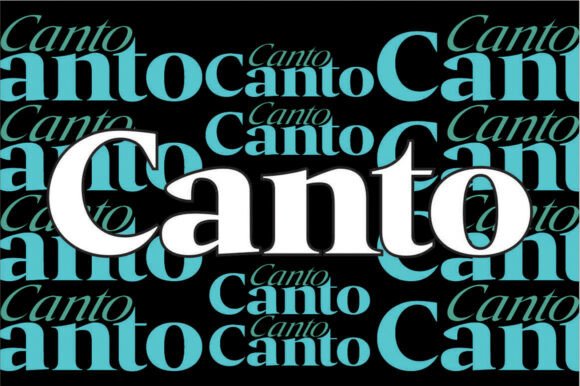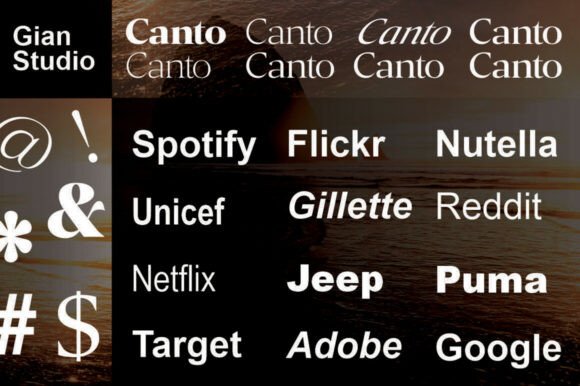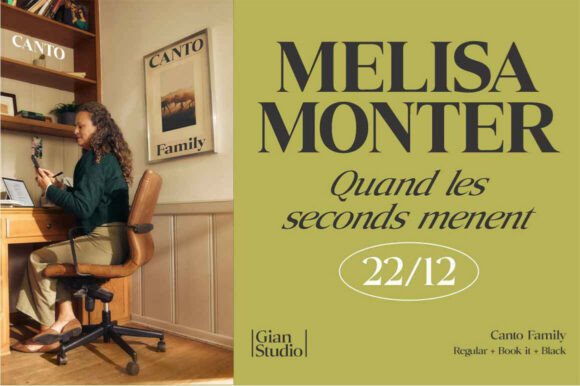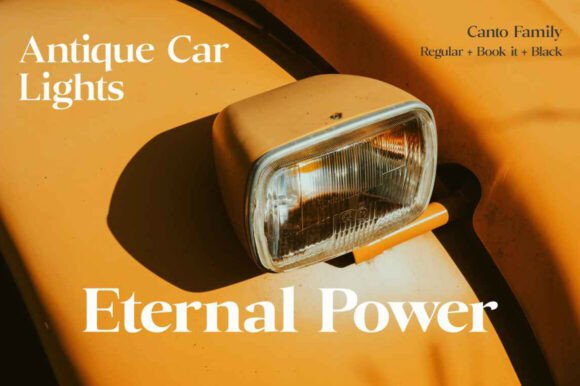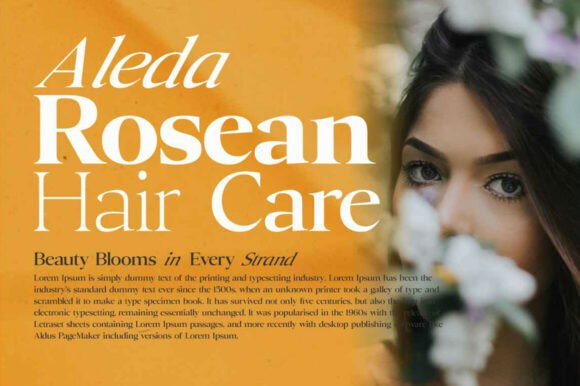
Introducing Canto Font: Where Timeless Heritage Meets Modern Usability
In the world of typography, few font families have managed to strike a balance between classic charm and modern usability. Canto Font is one such exceptional typeface that seamlessly blends the best of both worlds, offering a unique fusion of timeless heritage and versatile engineering. This monumental serif display font family is a masterpiece of typographic design, drawing inspiration from traditional Roman inscription geometry and vintage editorial frameworks.
The Inspiration Behind Canto Font
Canto Font’s design is deeply rooted in the structural integrity of traditional Roman inscriptions and vintage editorial frameworks. The font’s creators sought to revive the classic charm of these timeless typographic styles while infusing them with modern usability. The result is a font family that exudes authority, elegance, and sophistication. The bold, authoritative stems and sharply chiseled serifs of Canto Font give it a commanding presence on the canvas, making it an ideal choice for designers seeking to make a statement.
A Masterful Typographic Production Kit
Canto Font is more than just a font – it’s a comprehensive typographic production kit. The complete family package includes an expansive library of 19 styles, ranging from stately, ultra-bold weights to fluid, forward-slanting italics. This vast range of styles gives editorial designers complete creative fluidity, allowing them to experiment with different typographic combinations and express their unique vision. Whether you’re designing a luxury brand logo, a high-end editorial spread, or a monumental signage project, Canto Font has got you covered.
Key Features of Canto Font
- 19 styles: The Canto Font family includes 19 styles, from ultra-bold weights to fluid italics, providing designers with a wide range of creative options.
- Monumental serif design: Canto Font’s serif design is inspired by traditional Roman inscriptions, giving it a timeless and authoritative feel.
- Versatile engineering: The font’s modern usability makes it suitable for a wide range of design applications, from editorial design to branding and signage.
- Classic charm: Canto Font’s classic design elements evoke a sense of heritage and tradition, making it perfect for luxury brands and high-end editorials.
Applications of Canto Font
Canto Font’s versatility makes it suitable for a wide range of design applications. Here are a few examples:
- Editorial design: Canto Font’s elegant and sophisticated design makes it perfect for high-end editorials, magazines, and newspapers.
- Branding and logo design: The font’s bold, authoritative stems and sharply chiseled serifs make it an ideal choice for luxury brand logos and signage.
- Signage and display design: Canto Font’s monumental serif design makes it perfect for large-scale signage and display projects, such as billboards, posters, and banners.
Canto Font is a game-changing typographic asset that offers designers the perfect blend of timeless heritage and modern usability. With its 19 styles, monumental serif design, and versatile engineering, this font family is an absolute powerhouse for editorial designers, crafters, and branding experts. Whether you’re looking to create a luxury brand logo, a high-end editorial spread, or a monumental signage project, Canto Font is the ultimate choice for designers seeking to make a statement.